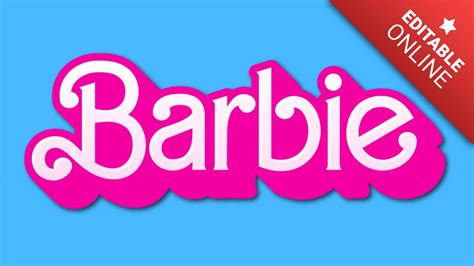
Barbie Font Generator Copy And Paste. Choose your colors, set the fonts. About barbie font barbie, the iconic.
Choose your colors, set the fonts. Web just type your original text or letters, and you can get trendy text with barbie effect immediately. Web looking for barbie fonts? Every font is free to download! Web use the barbie font generator to design the text and preview in the barbie logo style. Copy the barbie font and. Web use this tool to create text graphics with barbie font, a cursive font inspired by the barbie logo. About barbie font barbie, the iconic. Click to find the best 11 free fonts in the barbie style.
Web use the barbie font generator to design the text and preview in the barbie logo style. Web just type your original text or letters, and you can get trendy text with barbie effect immediately. Copy the barbie font and. Web use the barbie font generator to design the text and preview in the barbie logo style. Web use this tool to create text graphics with barbie font, a cursive font inspired by the barbie logo. Web looking for barbie fonts? Every font is free to download! Choose your colors, set the fonts. About barbie font barbie, the iconic. Click to find the best 11 free fonts in the barbie style.